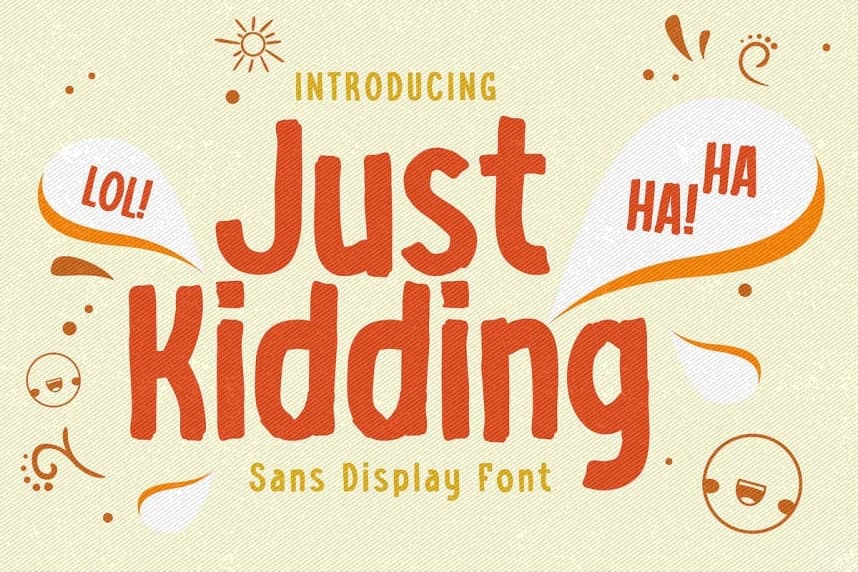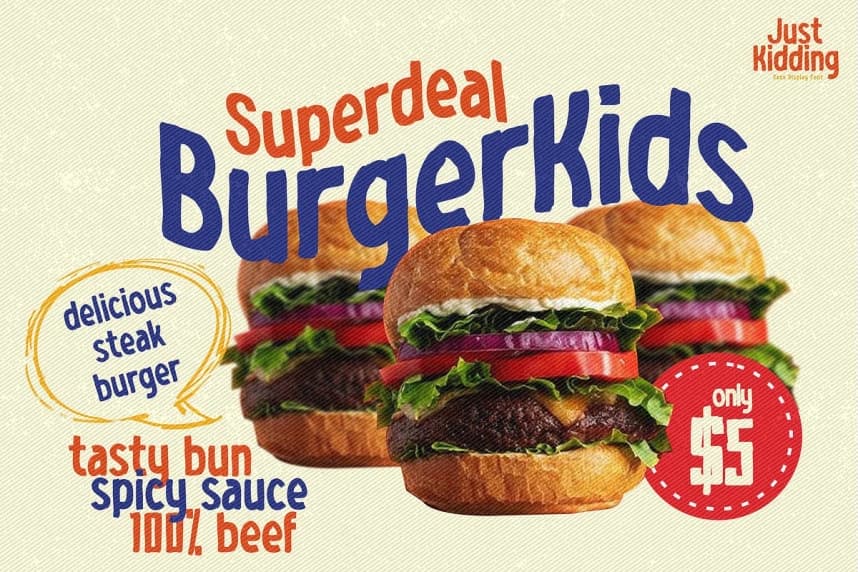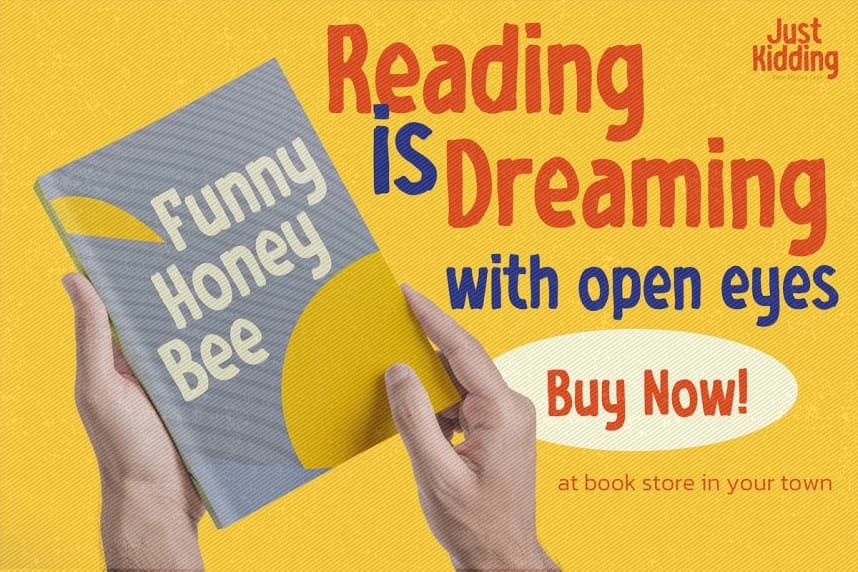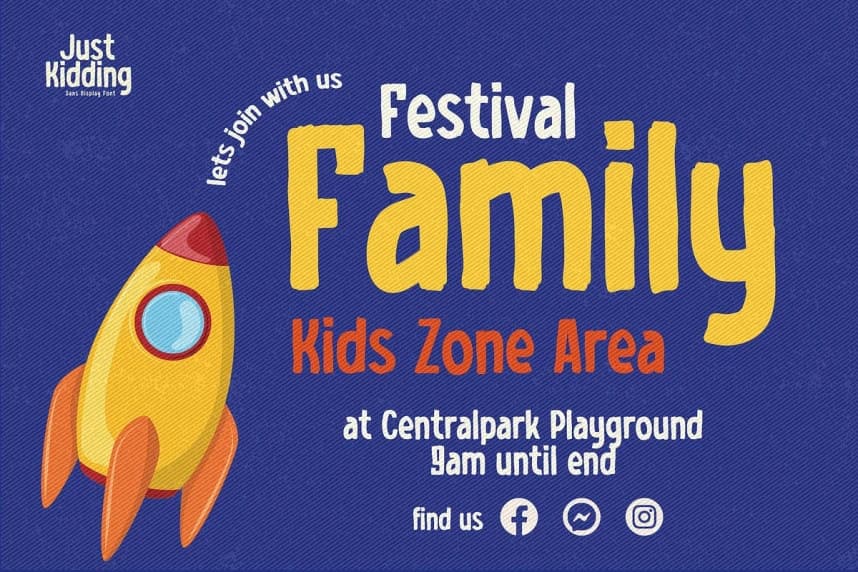
Just Kidding Font
Just Kidding Font is Sans Display Font, This Font Authentic that is written casually and quickly. Then scanned and carefully drawn into vector format. This handmade font will make your design has a beautiful natural touch for each details.